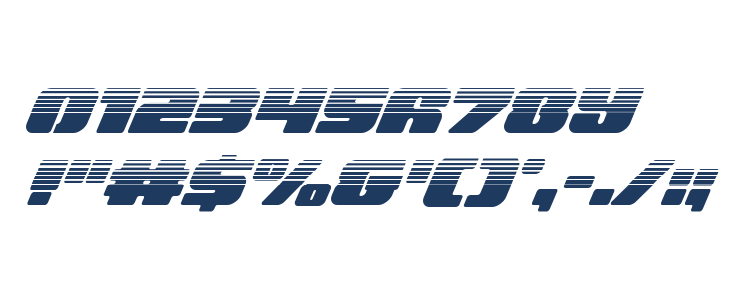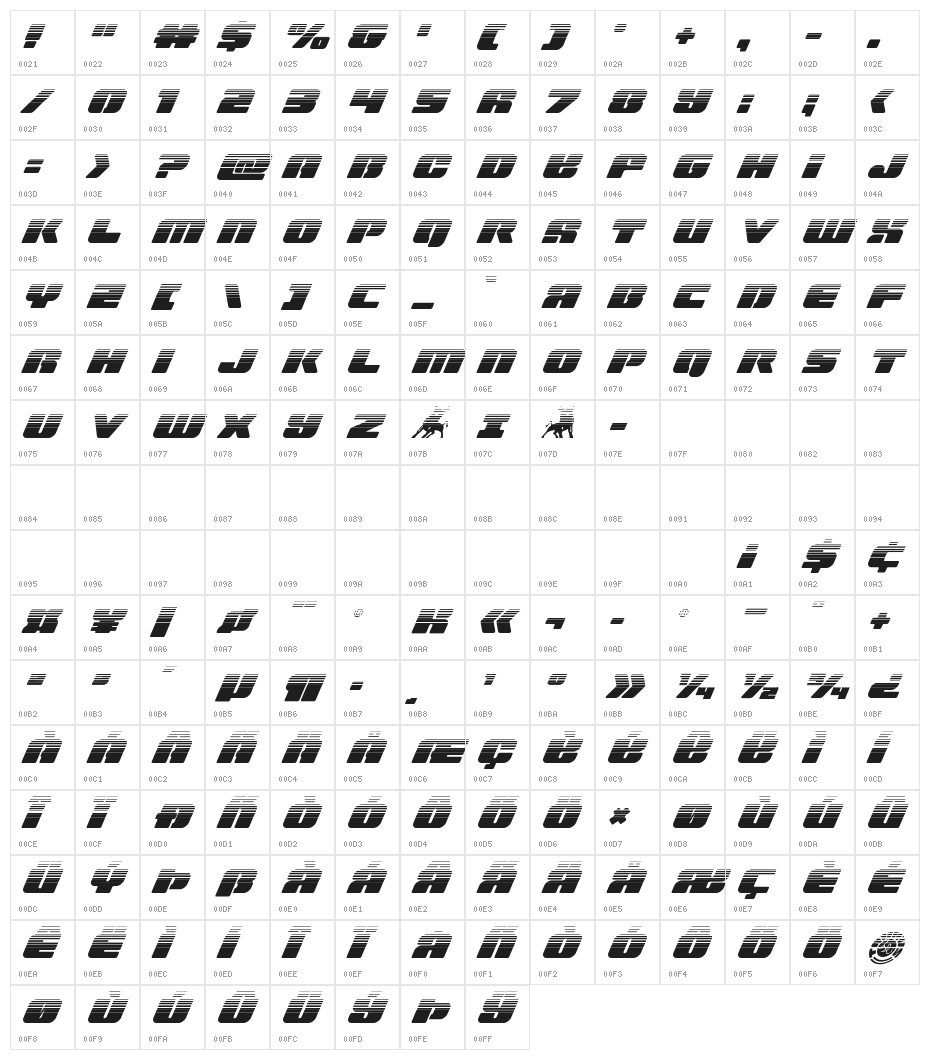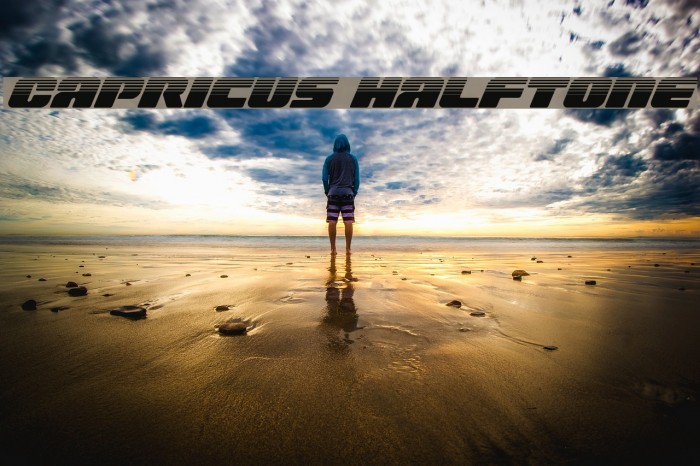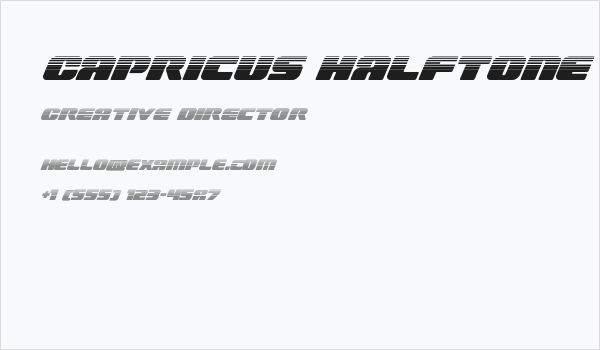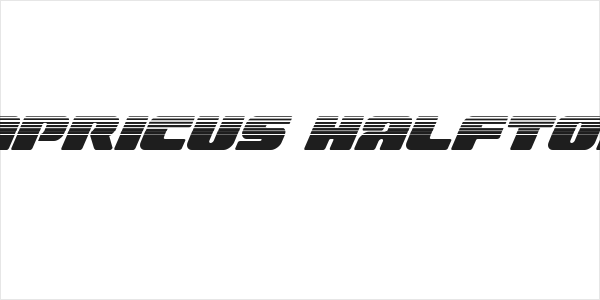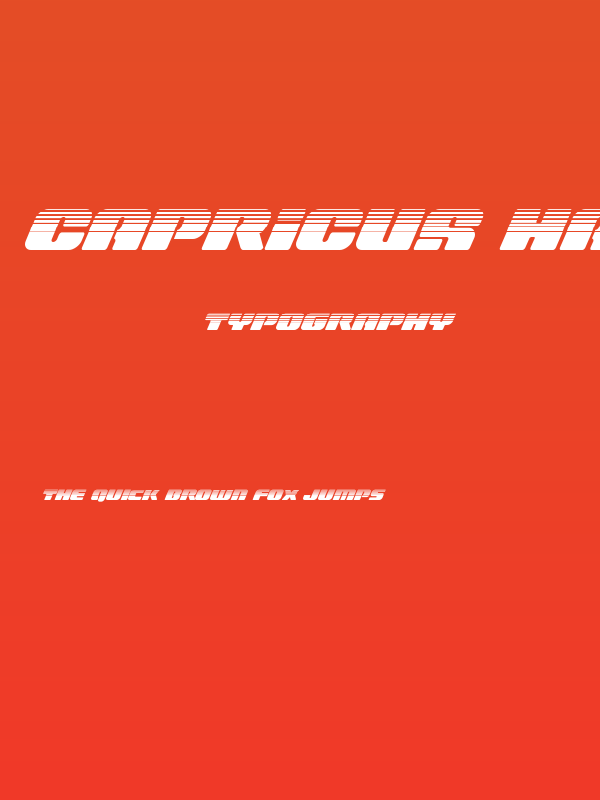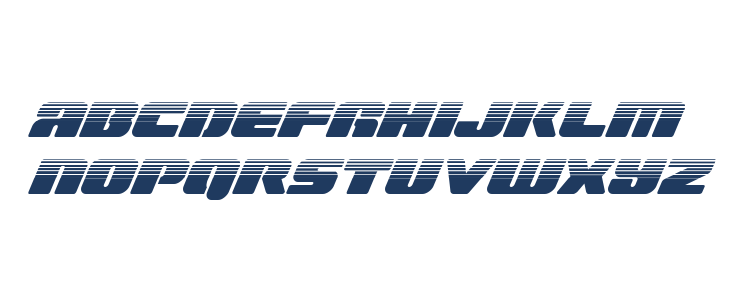
Capricus Halftone Font
Capricus Halftone Description
This font features a bold, dynamic design with a halftone effect that gives it a sense of movement and energy. The characters are constructed with horizontal lines that create a striped pattern, adding a unique texture to the text. The overall appearance is modern and futuristic, making it ideal for projects that require a strong visual impact. The uppercase and lowercase letters maintain a consistent style, with numbers and special characters following the same design principles. The font's distinct look is perfect for attention-grabbing headlines and creative displays.